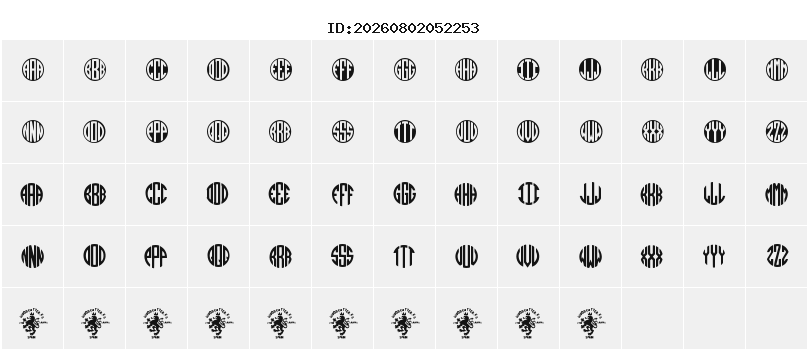
MONOGRAMOS Preview
• Font Name: MONOGRAMOS
• Designer: Woodcutter Manero
About MONOGRAMOS.ttf
MONOGRAMOS.ttf is a modern, elegant sans-serif font designed for ultimate readability and visual harmony. Perfect for branding, headlines, web design, and print materials.